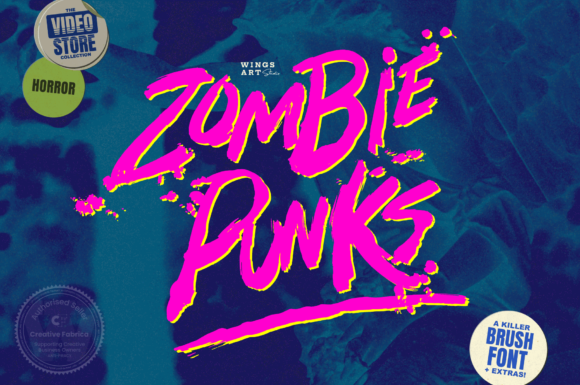
Looking for the perfect font to bring your designs to life? Look no further than Zombie Punks Font! Created by wingsart, this font is not your average display font. It is a powerful, graffiti-styled masterpiece that will instantly elevate your creations to a whole new level.
With its futuristic, street art vibe, Zombie Punks Font is the ultimate choice for those who want to make a bold statement. Whether you're designing a movie poster, a t-shirt, or a logo, this font will grab attention and captivate your audience like no other.
But why should you choose Zombie Punks Font over other options? Simple. It's the best font for movie posters. Imagine your film's title displayed in this unique, eye-catching font. It will instantly create a sense of excitement and anticipation, drawing potential viewers in.
Not only is Zombie Punks Font perfect for movie posters, but it is also a versatile choice for various other design projects. Its edgy and rebellious nature makes it ideal for sportswear, adding that extra touch of attitude to your athletic apparel. Moreover, it can effortlessly enhance your brand's logo, giving it a fresh and urban look that will make it stand out from the competition.
But the benefits don't stop there. Zombie Punks Font is also the go-to option for advertisements and clothing designs. Its captivating style will make your ads impossible to ignore, ensuring that your message reaches a wider audience. And when it comes to clothing, this font will transform any design into a fashion statement that speaks volumes.